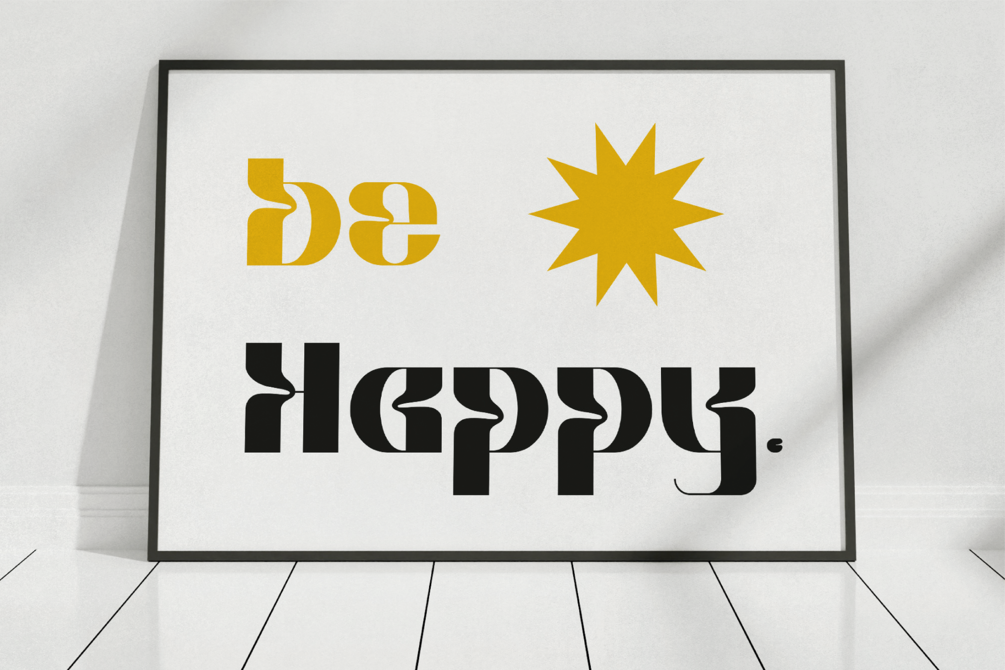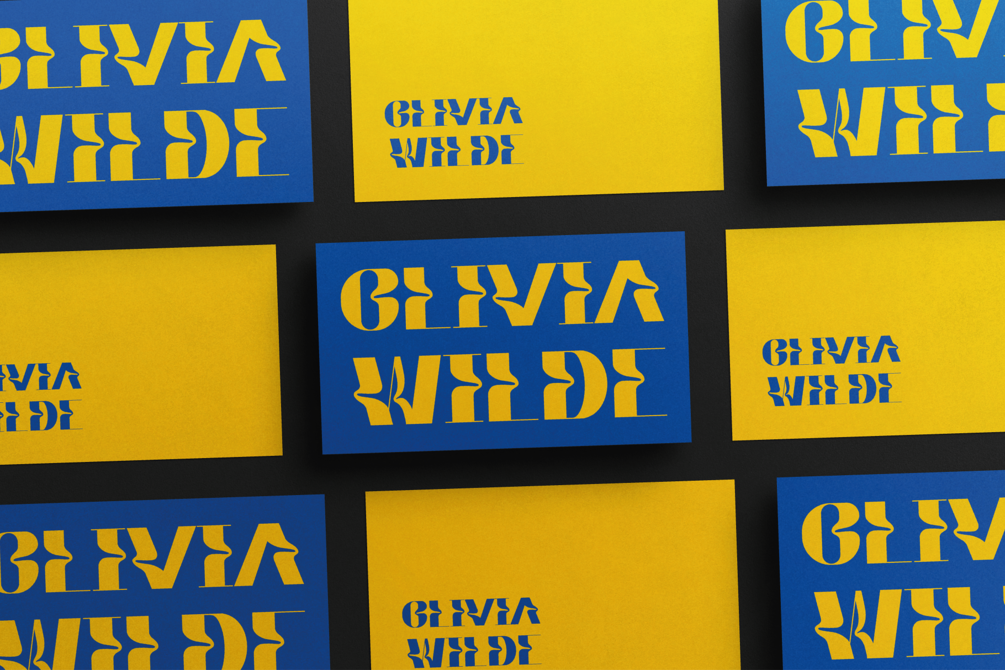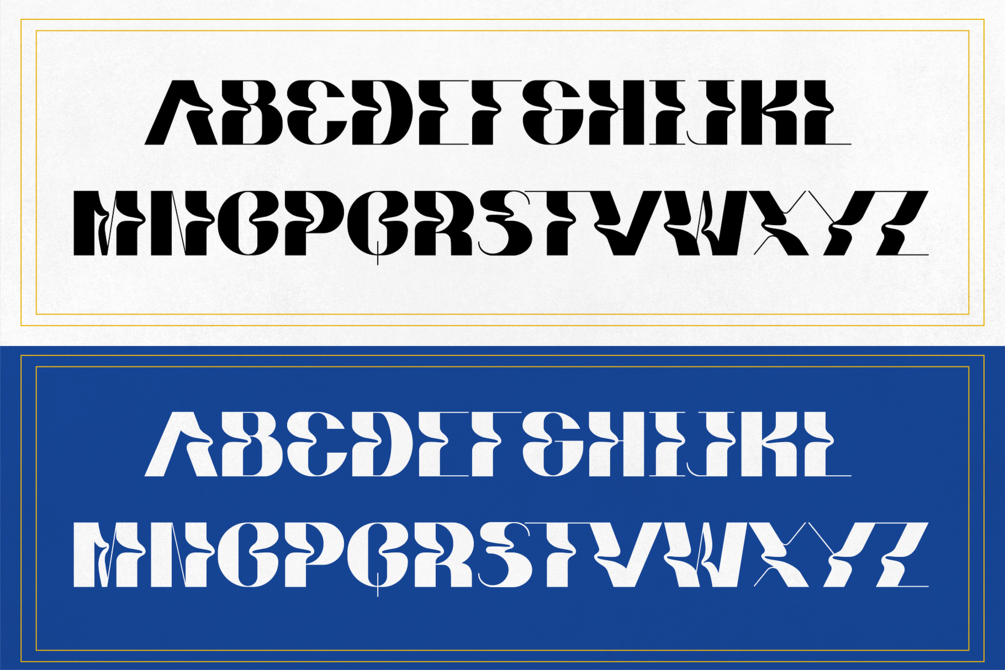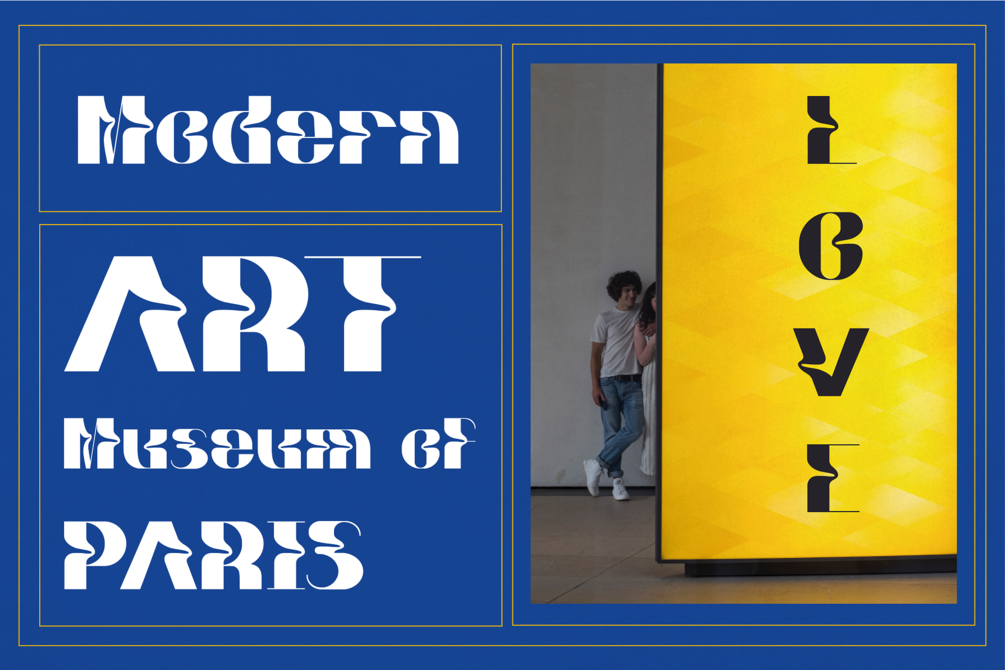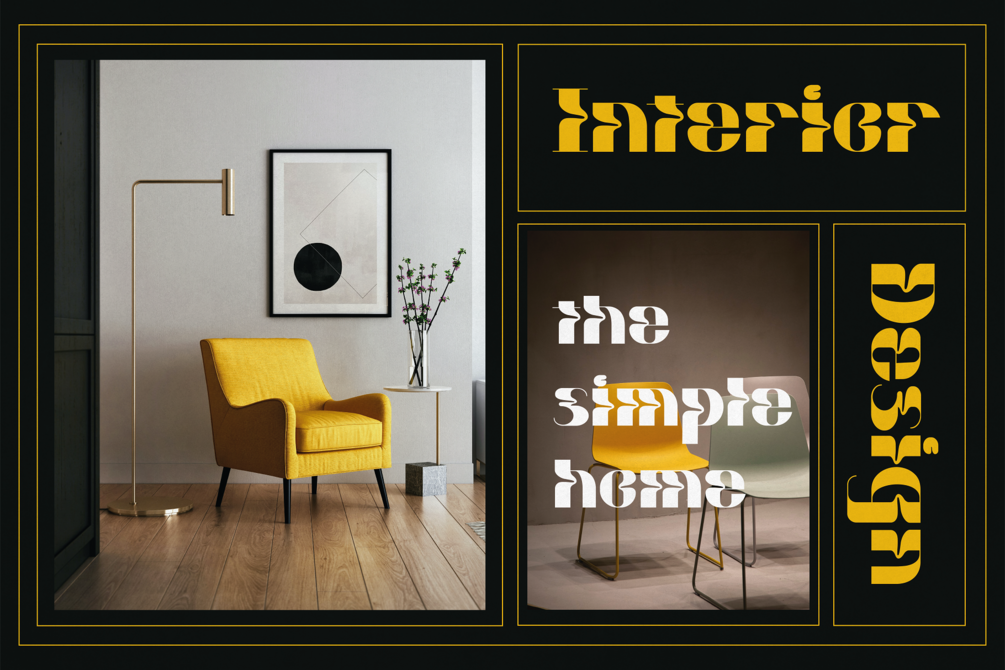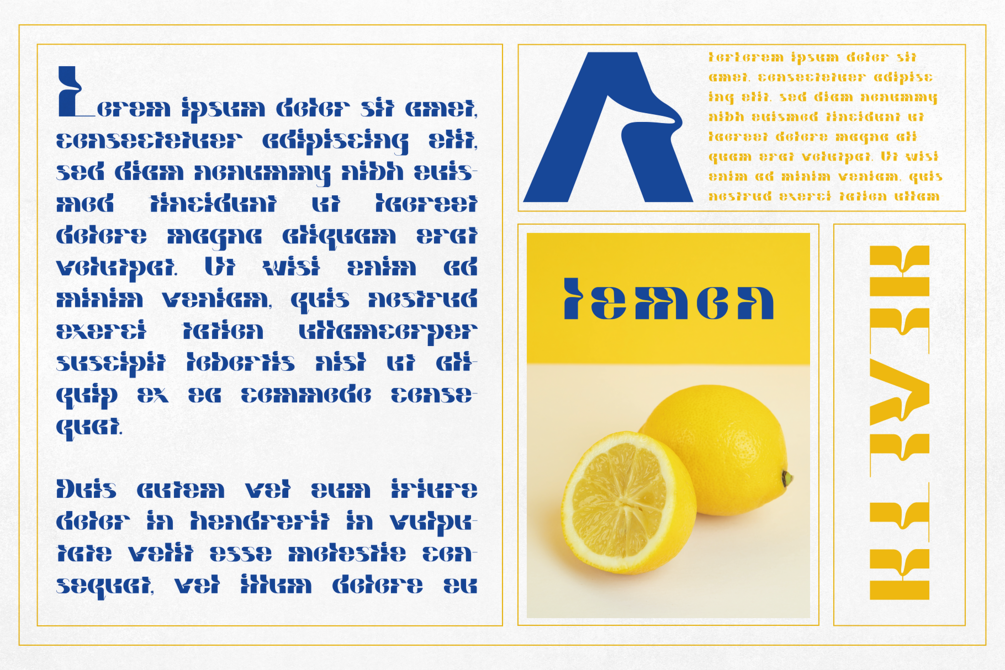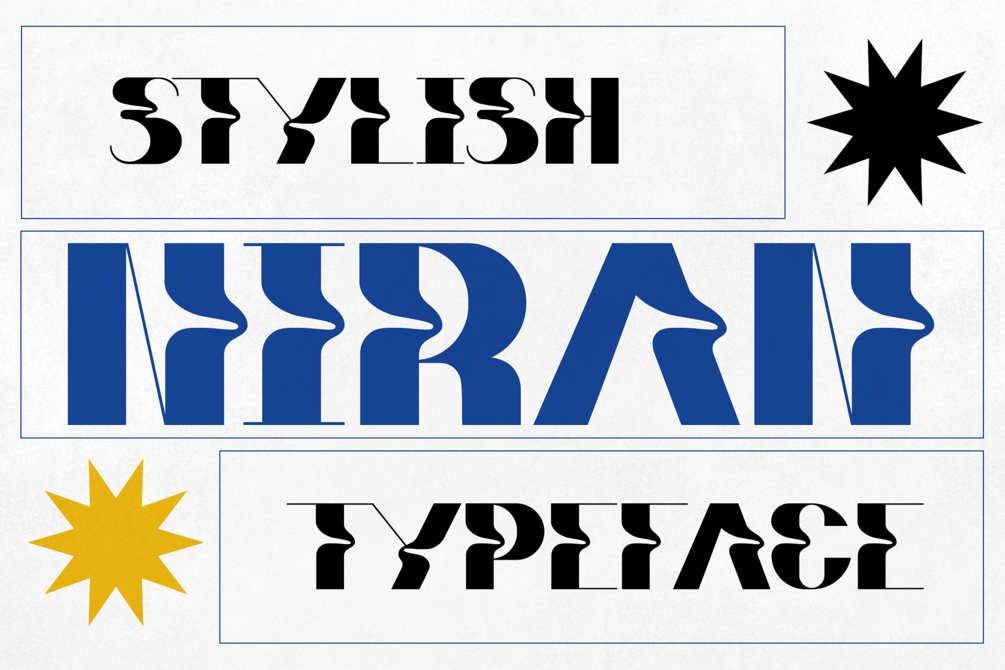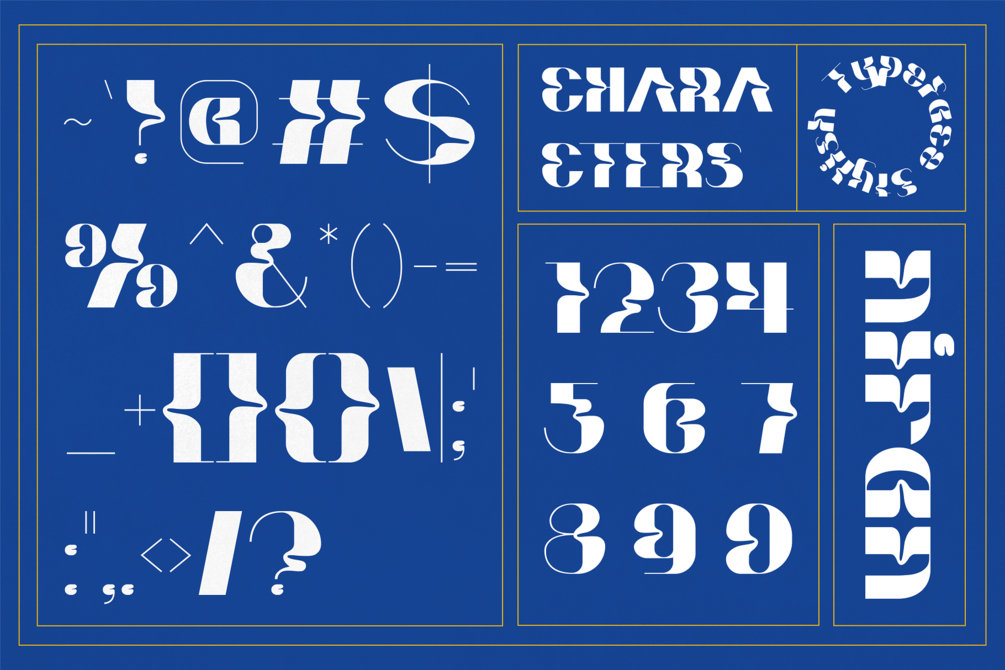
Niran - Stylish Experimental Display
Niran is an experimental typeface with radical curves. Unique rippled lettering makes this font perfect for groovy posters, abstract logos, creative quotes, rad packaging, attention grabbing headlines, and much more. Niran mixes futurist letters with nostalgic curves, thus creating typography which stands out from the norm. If you're searching for an experimental font that breaks the rules, then look no further than Niran.